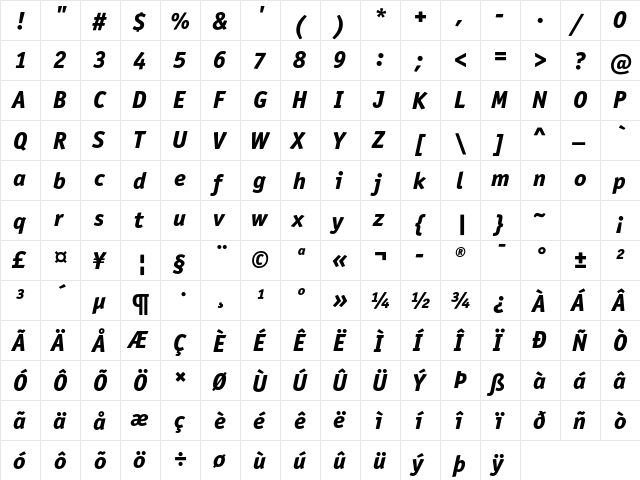
OfficinaSansITCStd ExtraBoldIta
| Designer | Erik Spiekermann and Ole Schaefer |
Design Context for OfficinaSansITCStd Typeface
OfficinaSansITCStd offers clean, dependable letterforms without strong stylistic allegiance, making it a practical choice for designers who need flexibility. Its bold stroke weight gives it real presence on the page.